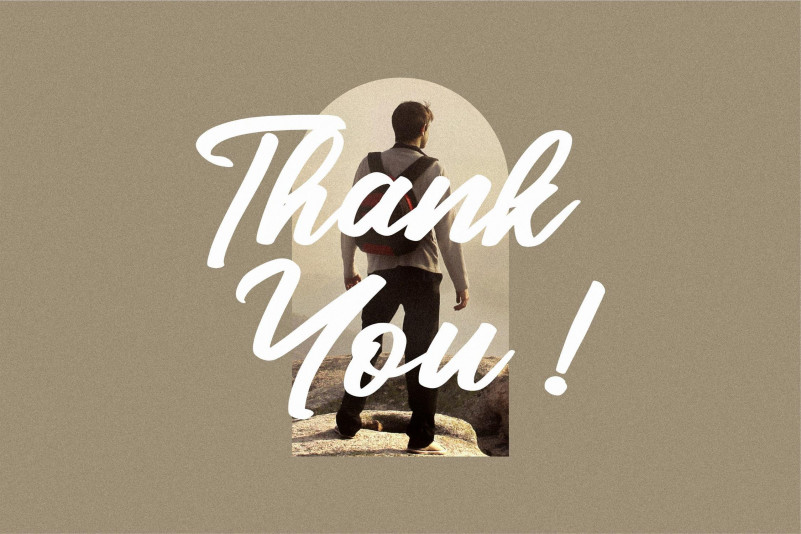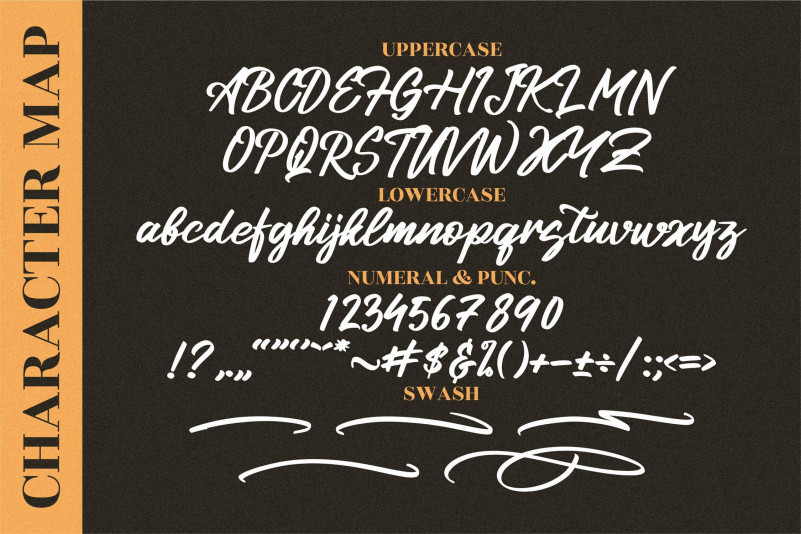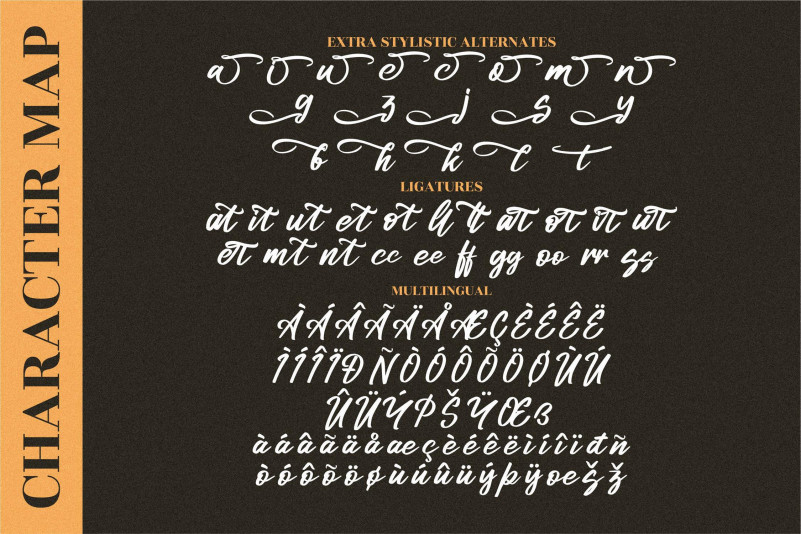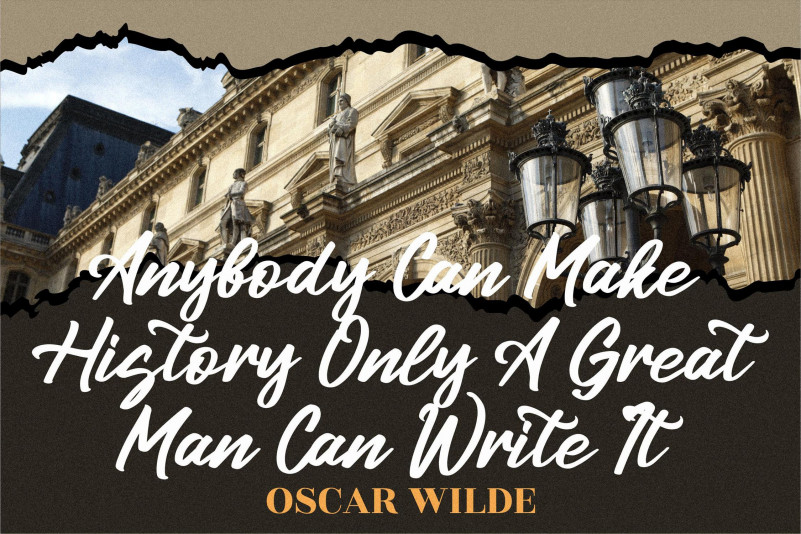
Kalingtone Brilliant Font
Kalingtone Brilliant Script Font
This font is a gorgeous and cursive paint brushed handwritten font, crafted to give your headlines and logotype projects a stylish touch. This font reads as strong, confident, and dynamic and can add tons of nostalgic character to your designs.